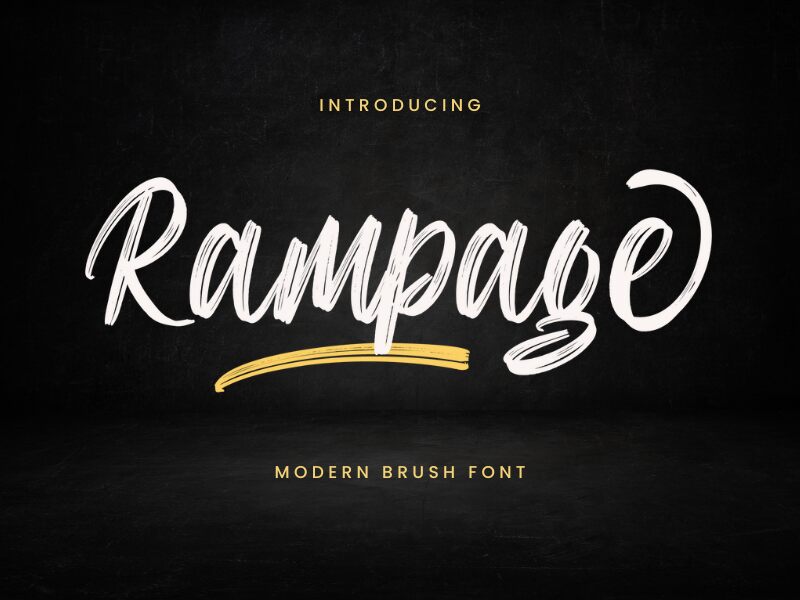
Rampage, a captivating brush font created by Creaditive Design, exudes a raw, dynamic energy that commands attention. Its bold, sweeping strokes and organic flow evoke a sense of movement and vitality, perfectly capturing the essence of its namesake. The font's unique character and distinctive style lend themselves to a wide range of design applications, from eye-catching headlines and impactful logos to expressive branding and editorial layouts.
Rampage's versatility makes it an excellent choice for projects that require a touch of rugged elegance and a dash of rebellious flair. Its bold, expressive nature lends itself well to fashion, music, and lifestyle-oriented designs, while its versatility also allows it to shine in more formal settings, such as event branding or corporate identities. Rampage's versatility and distinctive style make it a standout choice for designers seeking to create visually striking and memorable designs.